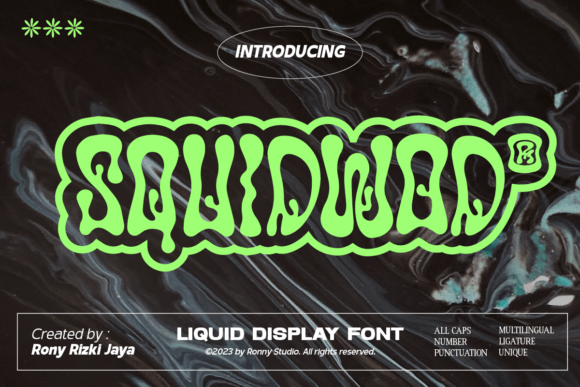
Venture into the extraordinary realm of Squidwod Font, where retro aesthetics meet bold, playful expressions. This display font, meticulously crafted by Ronny Studio, is not merely a collection of characters; it's a gateway to a design era characterized by vibrant colors and groovy vibes. Squidwod's unique charm stems from its ability to transport your creations back in time, evoking a sense of nostalgia and playfulness.
Unleash your creativity and transform ordinary designs into eye-catching masterpieces with Squidwod. Its distinctive characteristics, inspired by psychedelic acid graphics, lend a hand-done touch that oozes originality. Whether you're crafting posters or magazines, captivating Instagram posts or online content, or seeking a unique identity for your brand, Squidwod is the ultimate tool to elevate your projects.
Immerse yourself in a world where typography takes center stage. Squidwod's bold strokes and playful curves demand attention, commanding the audience's gaze. Its retro style, reminiscent of the swinging sixties and seventies, adds a touch of nostalgia and charm to any design. Unleash your inner artist and let Squidwod take you on a journey through time, where every letter tells a story.
With Squidwod at your disposal, ordinary text transforms into a visual symphony. Its liquid-like flow creates a dynamic and captivating effect, drawing the eye and captivating the imagination. Whether you're designing posters, logos, or social media posts, Squidwod's versatility knows no bounds. Let your creativity flow freely as you explore the endless possibilities this font presents.
Don't settle for mundane typography; embrace the extraordinary with Squidwod. Its ability to add a touch of retro charm and psychedelic flair to any project is unparalleled. Step into the spotlight and let Squidwod be your creative companion, propelling your designs to new heights. Experience the magic of Squidwod today and witness the transformation of your creative vision into a captivating reality.